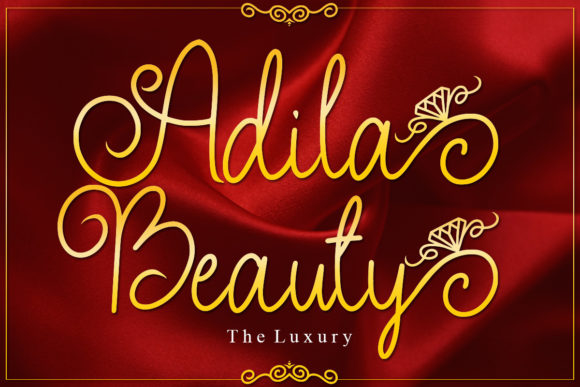
The Elegance of Adila Beauty Font: A Designer’s Dream
Have you ever been in the middle of a design project, and suddenly, you’re stuck on finding the perfect font? I certainly have, and it was during one of those moments that Adila Beauty was born. I wanted to create a font that exudes elegance, a classic decorative copperplate script with a modern twist. And so, Adila Beauty came to life – a display font designed for vintage logos, fashion labels, custom card headers, badges, food packaging designs, and especially wedding fonts.
The Birth of Adila Beauty
As a designer, I’ve always been drawn to the sophistication of copperplate scripts. However, I wanted to create something that not only paid homage to this classic style but also offered a fresh, modern take. Adila Beauty is the result of this creative quest. With its elegant lines, beautiful swashes, and versatility, it’s quickly become a favorite in my design arsenal.
What I Love About Adila Beauty
• ✨ Elegant and sophisticated design, perfect for high-end branding and wedding designs
• 💫 Highly versatile, suitable for various design projects, from logos to packaging
• 🎨 Beautifully crafted to add a touch of luxury and glamour to any design
As mentioned, Adila Beauty’s elegance and versatility are major strengths. The font’s design is meticulously crafted, with attention to detail that makes it stand out. The PUA encoding is a significant advantage, making it easy to access the various glyphs and swashes.
⚠️ One thing to note is that, like many elegant scripts, Adila Beauty might not be the best choice for body text or very small sizes, as some details might get lost. Also, while the font is highly versatile, it’s primarily designed for display purposes.
🤔 Another consideration is that, due to its decorative nature, Adila Beauty might not be suitable for very formal or traditional projects that require a more conservative look.
As a designer, I’ve always been fascinated by the works of classic calligraphers and the evolution of typography over the years. Adila Beauty was inspired by the elegance of traditional copperplate scripts, with a dash of modern creativity. The goal was to create a font that not only pays homage to the past but also meets the demands of contemporary design.
A: Adila Beauty is best used for projects that require an elegant, sophisticated look, such as vintage logos, fashion labels, custom card headers, badges, food packaging designs, and especially wedding fonts.
A: Yes, Adila Beauty supports OpenType features, including swashes and stylistic alternates, allowing for a high degree of customization in compatible software.